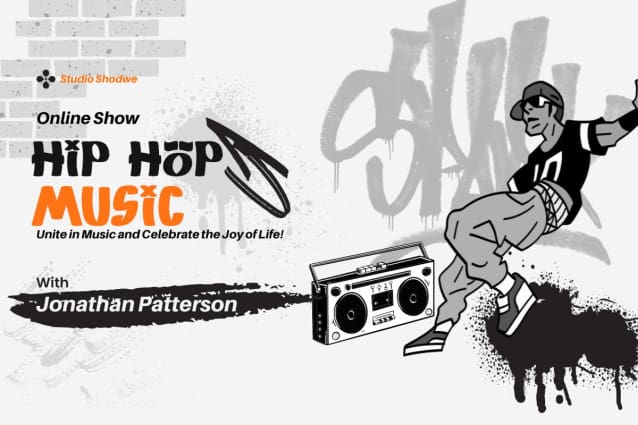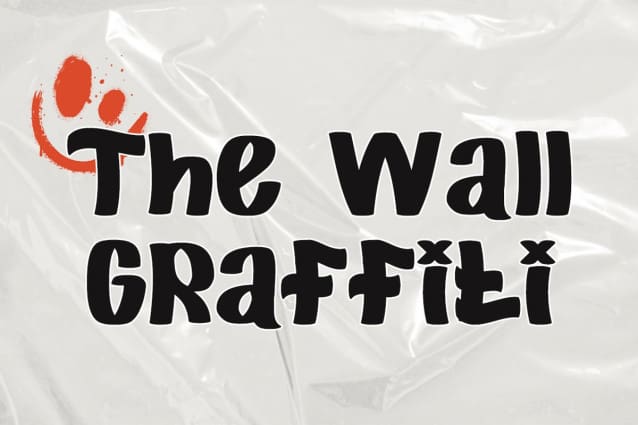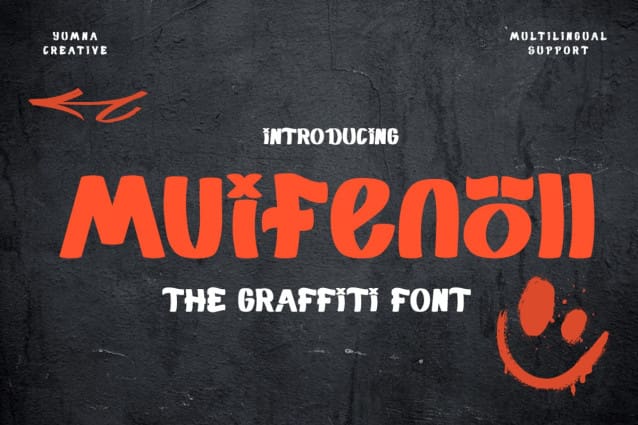
Muifenoll Display Font
Muifenoll Display Font is a bold and expressive graffiti font that captures the raw energy and creativity of street art. Perfect for urban-themed projects, this font brings a gritty, rebellious vibe to your designs with its edgy letterforms and dynamic style. Whether you’re creating posters, album covers, apparel, or social media graphics, Urban Graffiti adds a powerful visual impact that resonates with the culture and attitude of the streets. Ideal for designers looking to make a statement, this font is your go-to choice for projects that need an authentic, street-smart aesthetic.